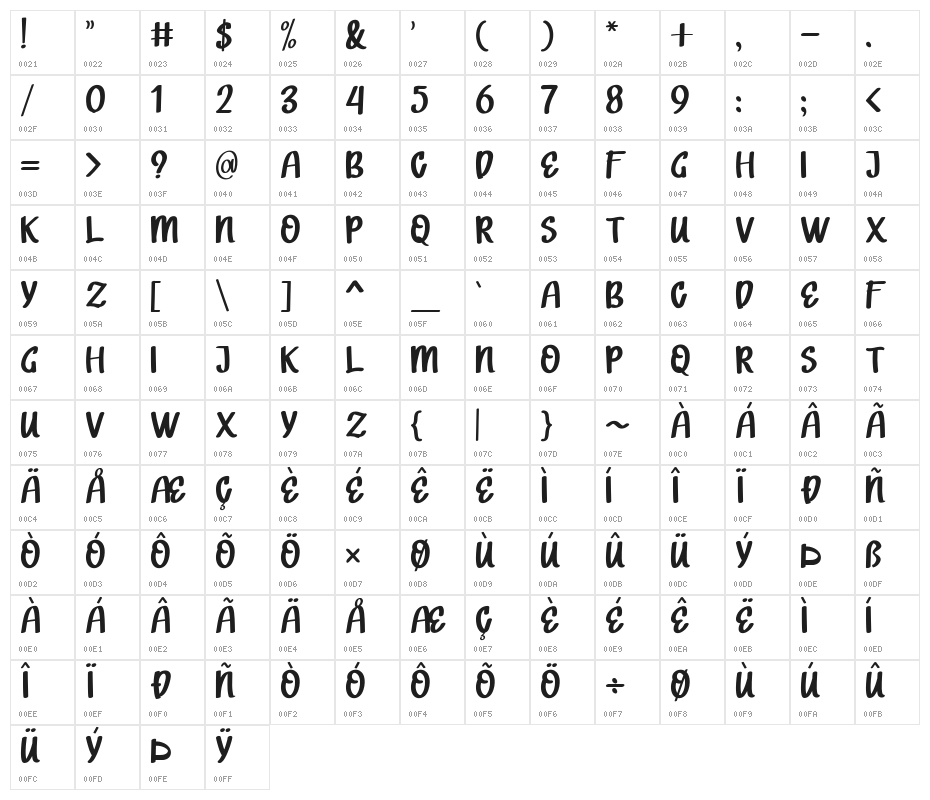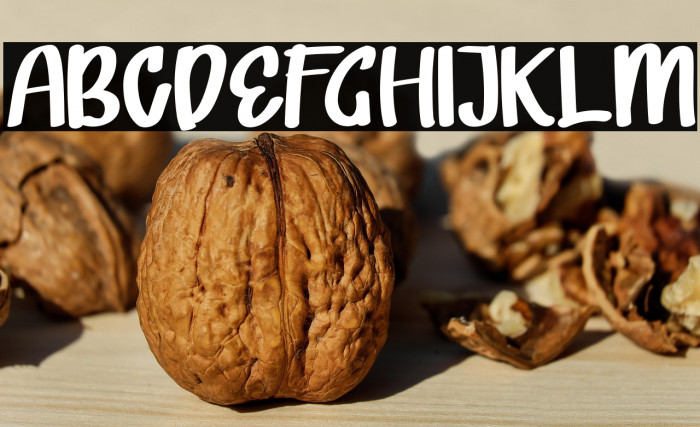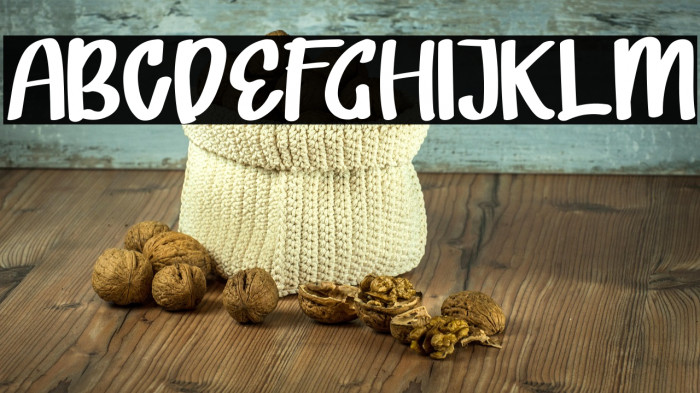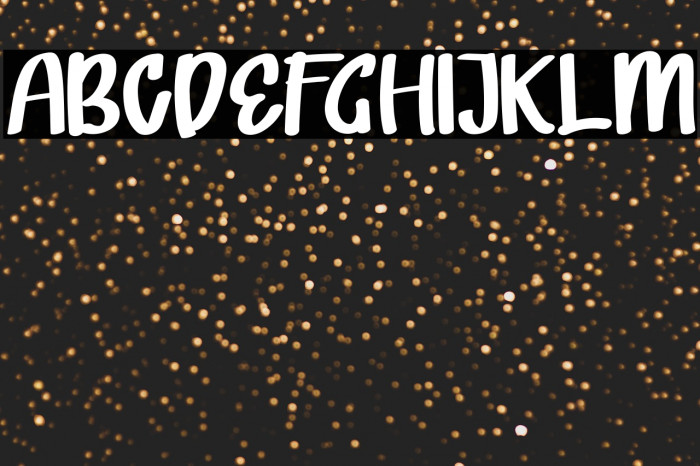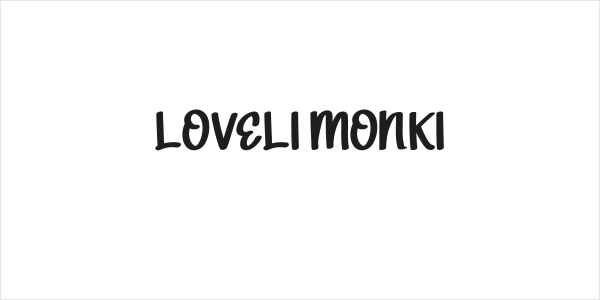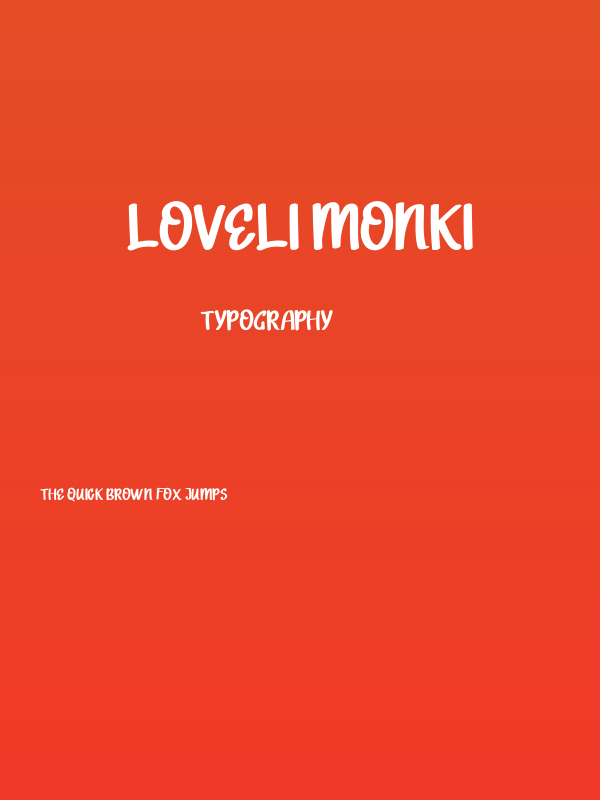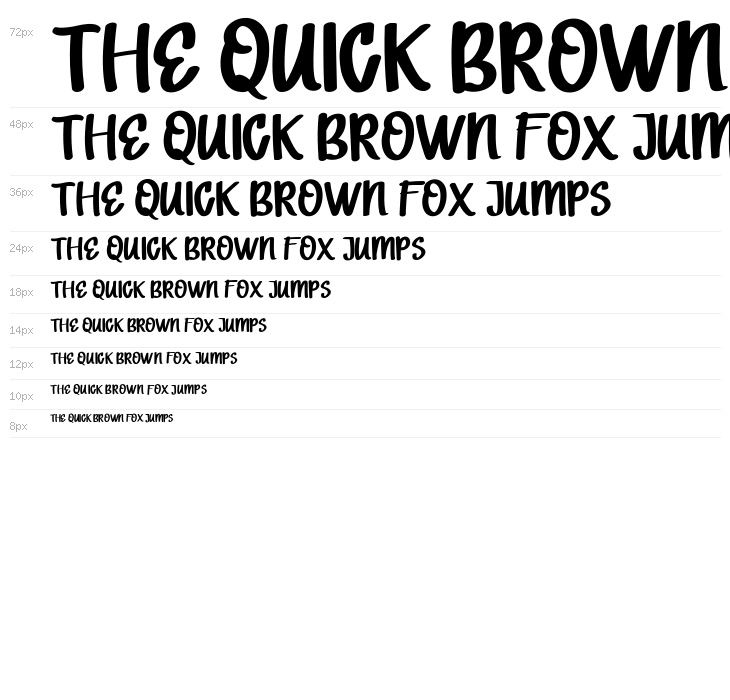
LOVELI MONKI Font
LOVELI MONKI Description
This font features a playful and bold handwritten style with a modern twist. The characters are rounded and slightly slanted, giving a casual and friendly appearance. The uppercase and lowercase letters maintain a consistent flow, with smooth curves and a uniform thickness throughout. Numbers and special characters are designed to match the overall style, ensuring a cohesive look. The font's boldness makes it stand out, while the handwritten aspect adds a personal touch, making it suitable for creative and informal projects.